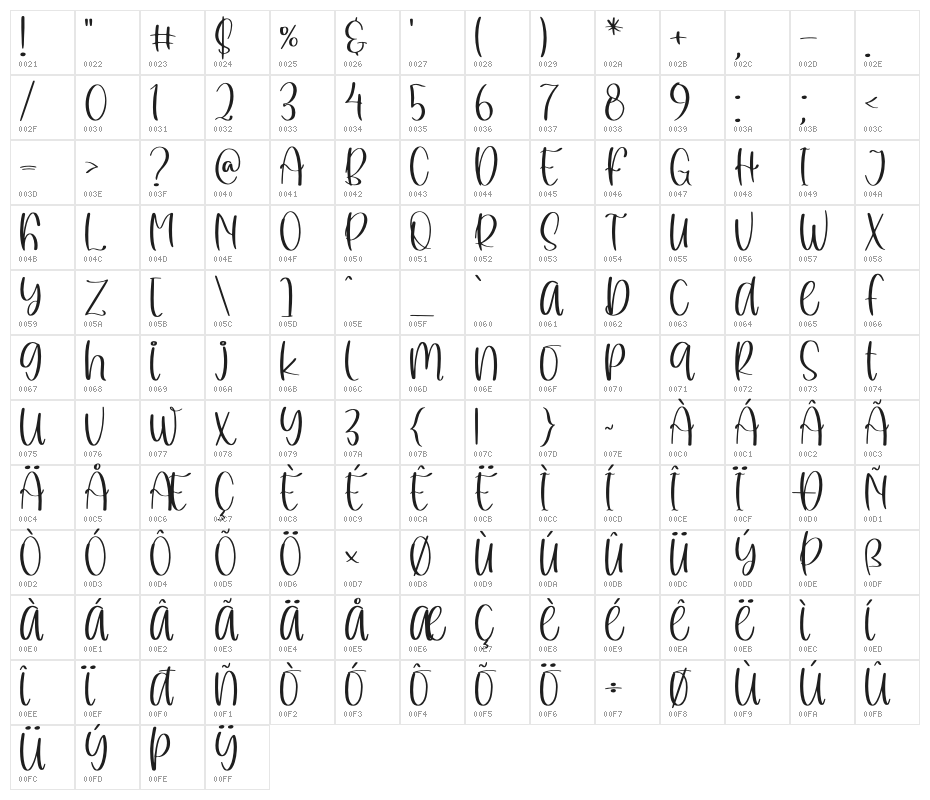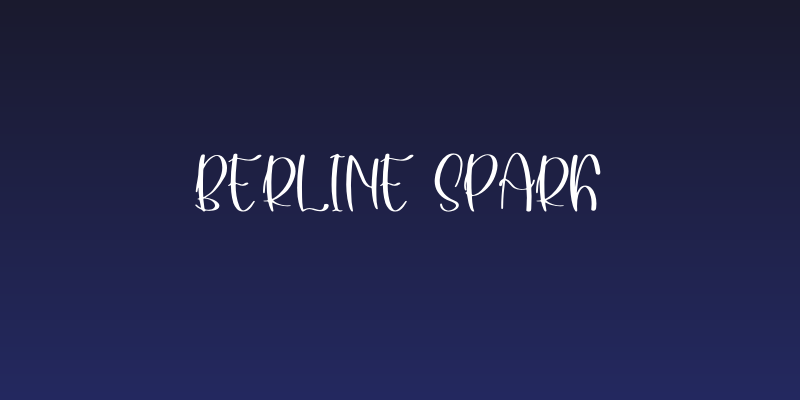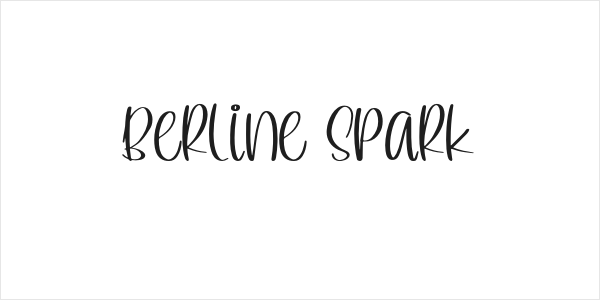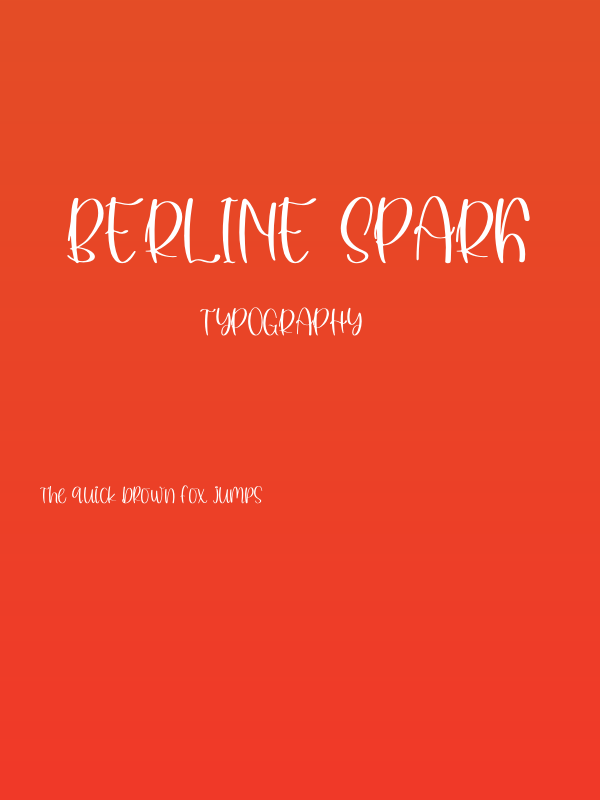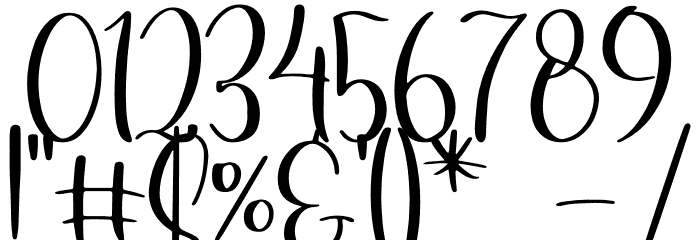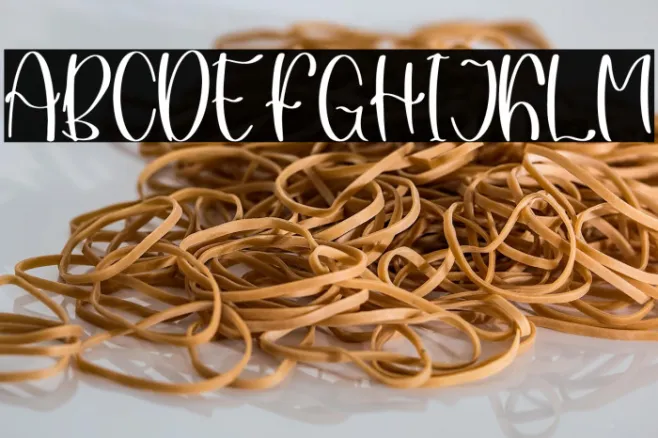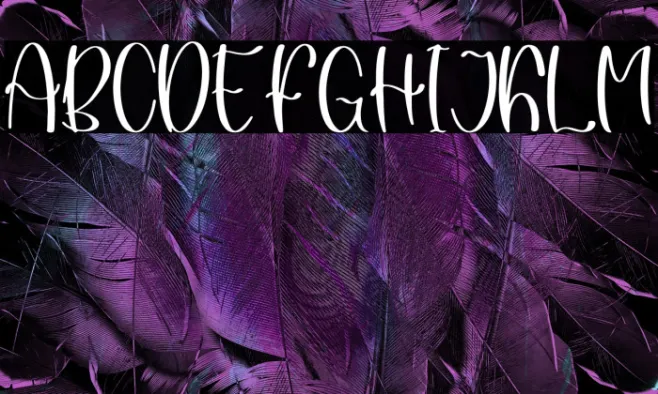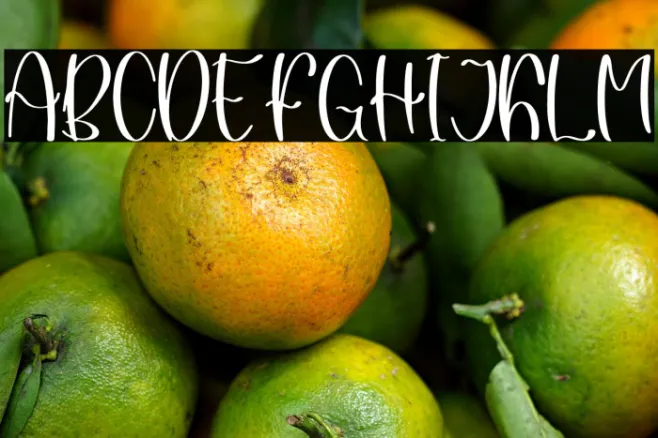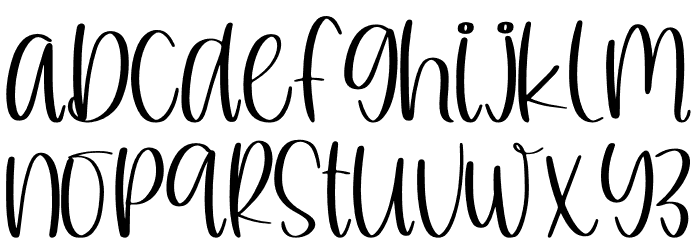
Berline Spark Font
Berline Spark Description
This font features a playful and dynamic script style with a handwritten feel. The letters are characterized by their fluid, flowing lines and varying stroke widths, giving them a lively and energetic appearance. The uppercase letters are bold and expressive, while the lowercase letters maintain a consistent, smooth flow. The numbers and special characters complement the alphabet with similar stylistic elements, ensuring a cohesive look. This font's unique charm is perfect for projects that require a personal touch or a sense of whimsy.
| Use Case | Logos, Invitations, Creative projects |
| Proposed Projects | Ideal for greeting cards, invitations, branding, and creative projects that seek a personal and lively touch. |